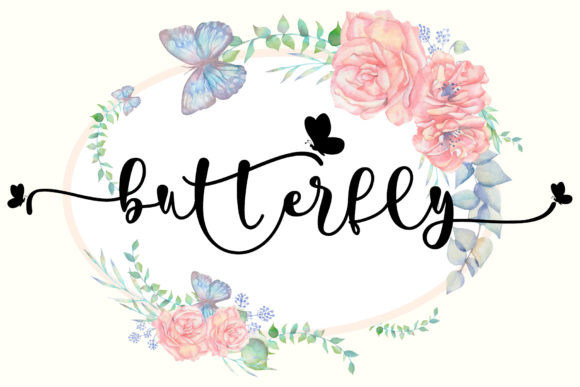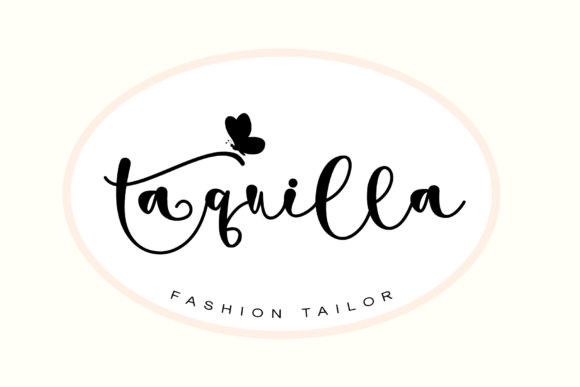
Pretty Butterfly Font
Pretty Butterfly is a sweet and beautiful handwritten font. It has a classy, elegant, and modern look which can be used for logos, branding, invitations, stationery, wedding designs, social media posts, and much more.